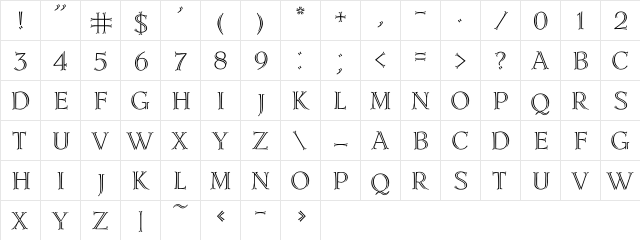
LidiaC Regular
Design Context for LidiaC Typeface
LidiaC takes a measured approach to typography — its balanced proportions and neutral character make it a reliable workhorse for both digital and print work.